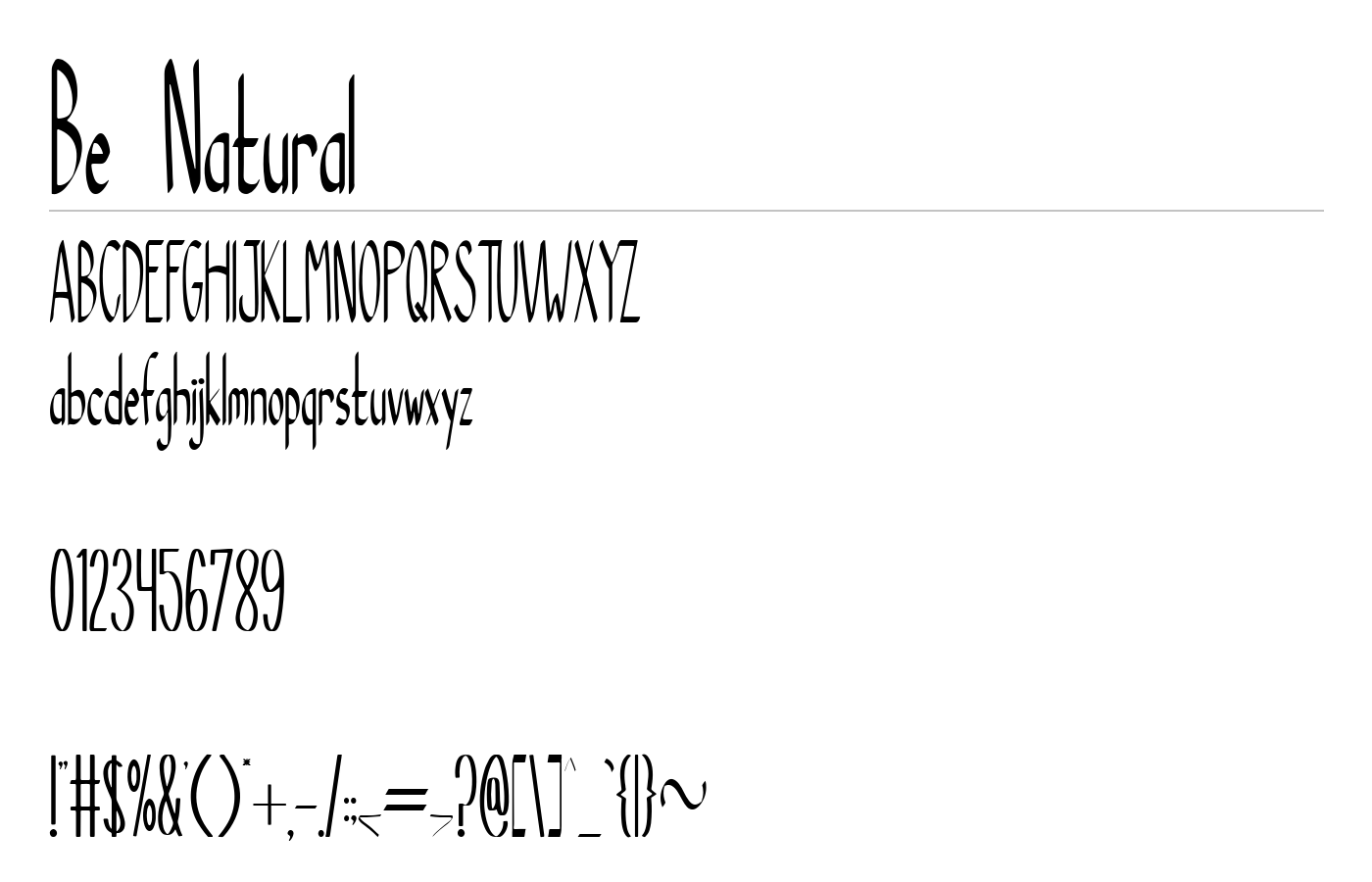
Be Natural is a tall, narrow sans serif font with a playful and quirky personality. Its thin strokes and slightly irregular shapes give it a hand-drawn, organic feel that works well for creative, casual, and natural-themed designs. This font shines in headlines, posters, and branding where a unique, approachable style is desired.
Be Natural Font
About Be Natural Font